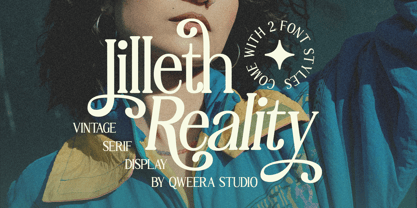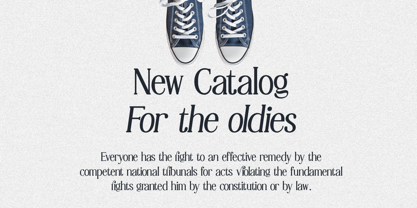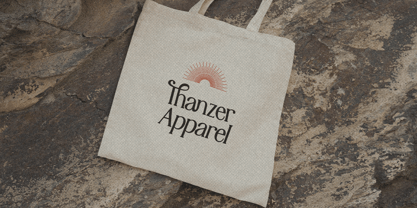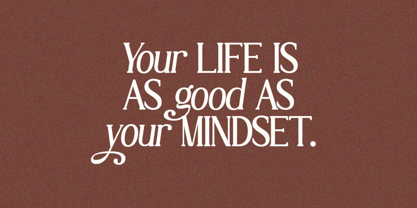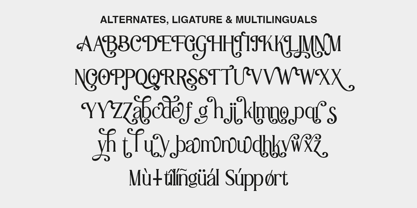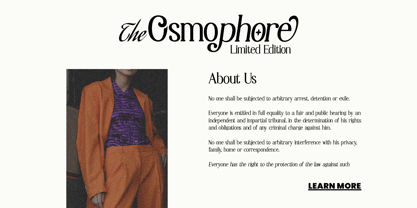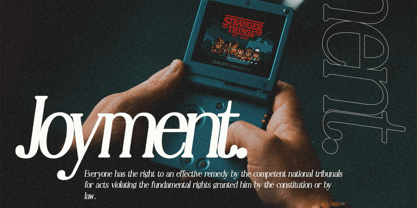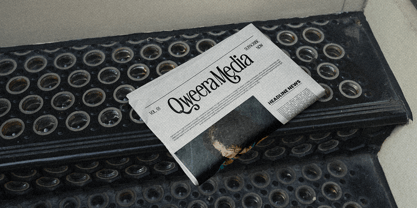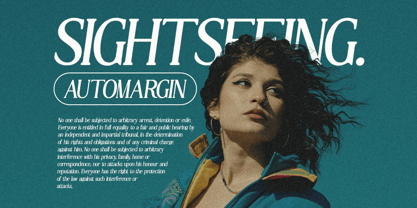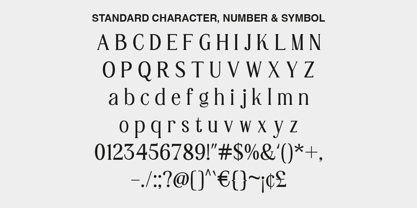
Lilleth Reality
von Qweera Studio
Die Schriftfamilie Lilleth Reality wurde von Idhham Cholid Rikzano Yahya entworfen und von Qweera Studio veröffentlicht. Lilleth Reality enthält 2 Stile und Familienpaketoptionen.
Lilleth Reality – Retro Vintage Serif Font
Lilleth Reality is a vintage serif font inspired by the iconic retro style of the 70s. This unique typeface blends bold and elegant elements, making it perfect for creating standout designs with a nostalgic yet modern feel.
Featuring regular and italic styles, Lilleth Reality includes stylish alternates and ligatures, offering effortless customization for your creative projects. It’s an ideal choice for posters, magazines, branding, and print materials, ensuring your designs look polished and professional.
Elevate your designs with the timeless charm and retro vibes of Lilleth Reality, a font that adds personality and sophistication to every project.
• Regular & Italic
• All Multilingual symbol
• Opentype features ( ligature, alternate )
Multilingual character supports : (Afrikaans, Albanian, Catalan, Croatian, Czech, Danish, Dutch, English, Estonian, Finnish, French, German, Hungarian, Icelandic, Italian, Lithuanian, Maltese, Norwegian, Polish, Portuguese, Slovenian, Spanish, Swedish, Turkish, Zulu)